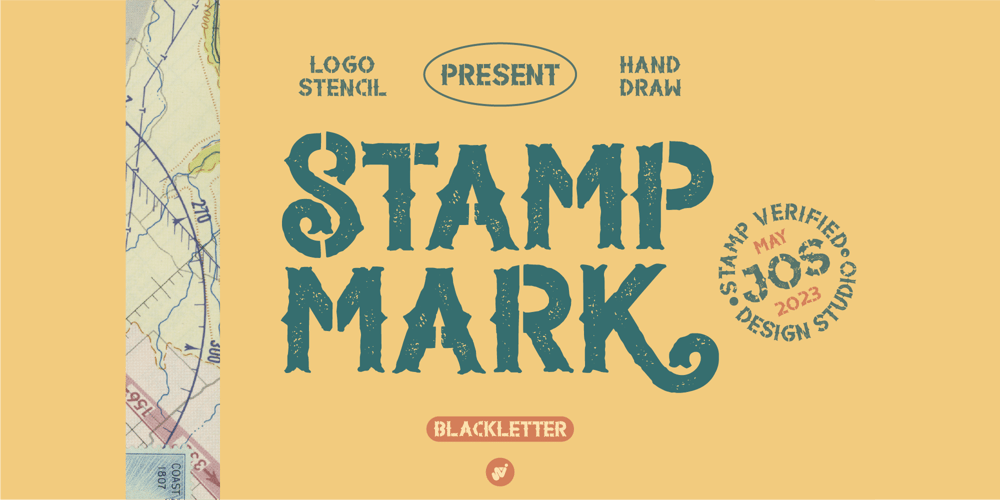
STAMP MARK Stencil Font Family was designed by Wahyu Aji Prasetyo and published by WAP Type. STAMP MARK Stencil contains 1 styles and family package options. This font is suitable for military or urban theme headlines with the Gruge stencil style.Features: Uppercase, Lowercase Punctuation & Number, Support in Mac and Windows OS Multilingual Support ÀÁÂÃÄÅÆÇÈÉÊËÌÍÎÏÐÑÒÓÔÕÖØÙÚÛÜÝ